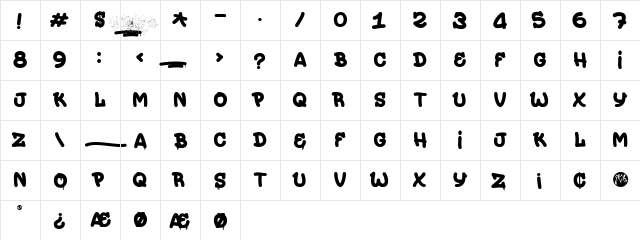
Painterz Regular Free Font
Painterz Regular
Design Context for Painterz
Painterz is a composed and adaptable typeface that performs quietly and consistently across a wide range of design contexts.
Pro Tip: Use Painterz in both headline and body roles to test its range before committing to a single application.